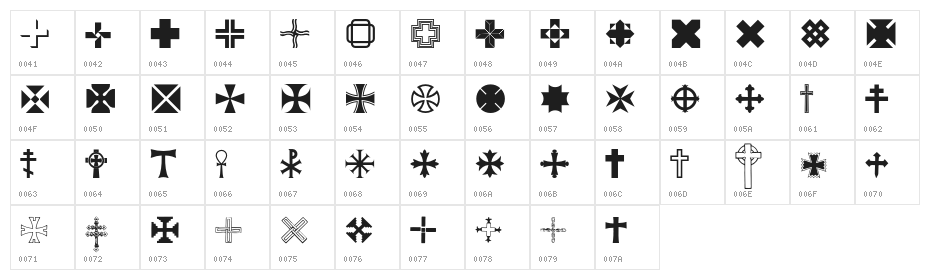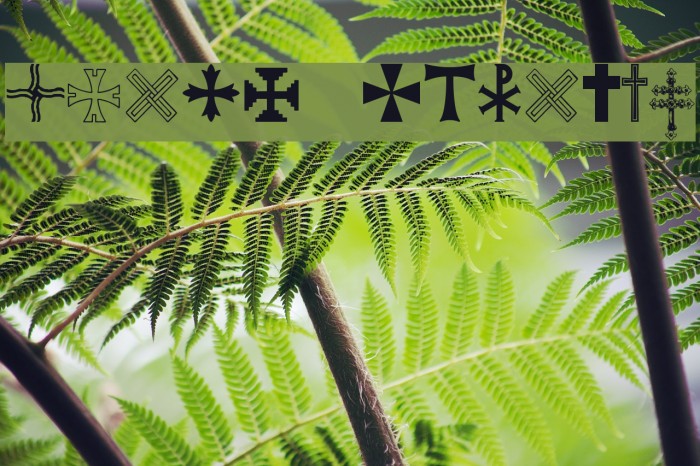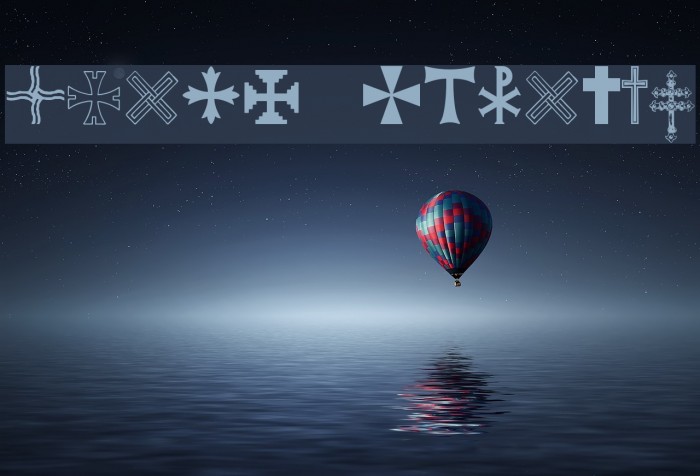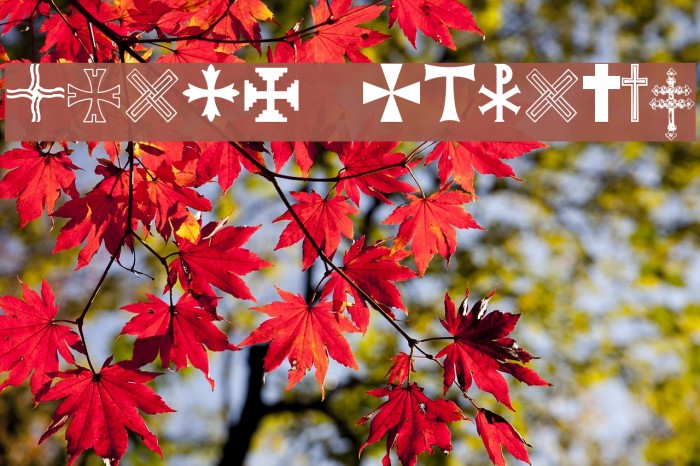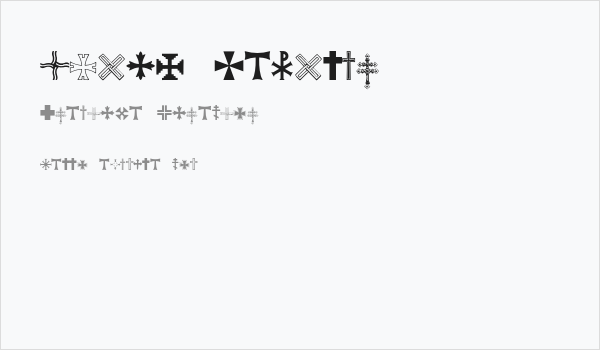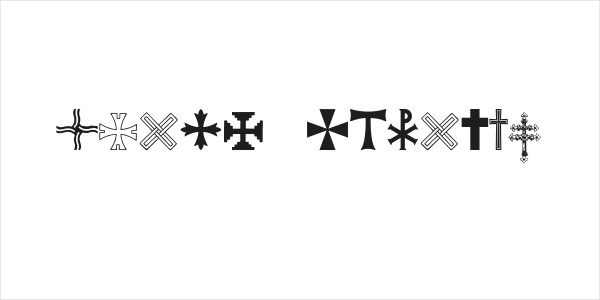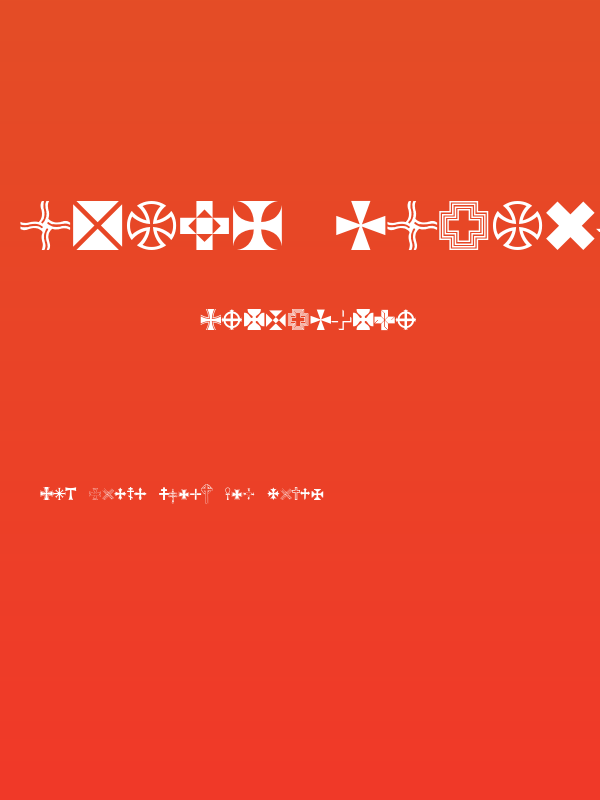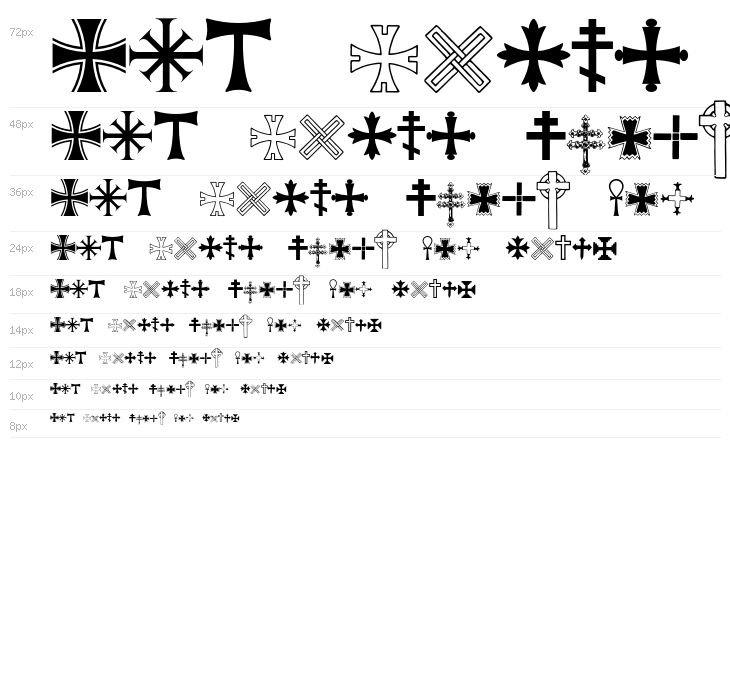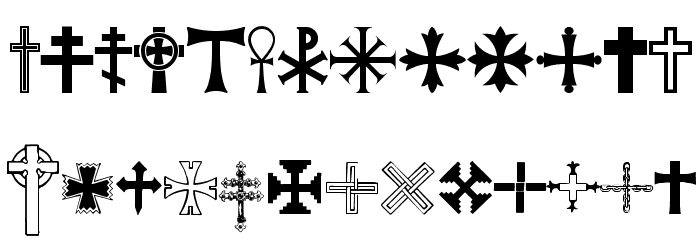
Equis Regular Font
Equis Regular Description
A decorative symbol font featuring a wide variety of cross and X-shaped glyphs, each with unique geometric, ornate, or stylized designs. The symbols range from simple, bold shapes to intricate, outlined, and embellished forms, offering high visual diversity.
| Overall Style | Decorative, Ornamental, Thematic |
| Use Case | Logos, Emblems, Decorative elements, Themed graphics |
| Proposed Projects | Religious or spiritual graphics, heraldic designs, logos, emblems, decorative borders, and themed event materials. |